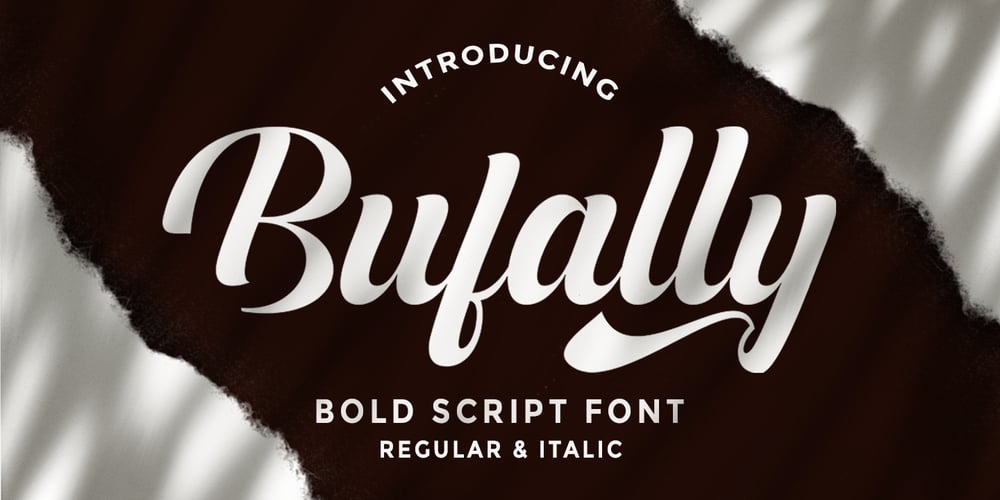
Bufally Script Font Family was designed by Rizki Andika and published by Letterfreshstudio. Bufally Script contains 2 styles and family package options. Bufally Script is a soft, bold, elegant and fun vintage script font. Can be used for various purposes such as logos, wedding invitations, t-shirts, letterheads, signage, news, posters, badges, and more. Bufally Script features 373 glyphs and alternate characters, ligatures, swash and multiple language support. To enable the OpenType Stylistic alternates, you need a program that supports OpenType features such as Adobe Illustrator CS, Adobe Indesign & CorelDraw X6-X7. How to get access alternate glyphs from open type fonts: http://youtu.be/iptSFA7feQ0 There are additional ways to access alternates/swashes, using Character Map (Windows), Nexus Font (Windows), Font Book (Mac) or a software program such as PopChar (for Windows and Mac). How to access all alternative characters, using Windows Character Map with Photoshop: https://www.youtube.com/watch?v=Go9vacoYmBw Need help? If you need help or advice, please contact me by e-mail: Letterfreshstudio@gmail.com Thank you!